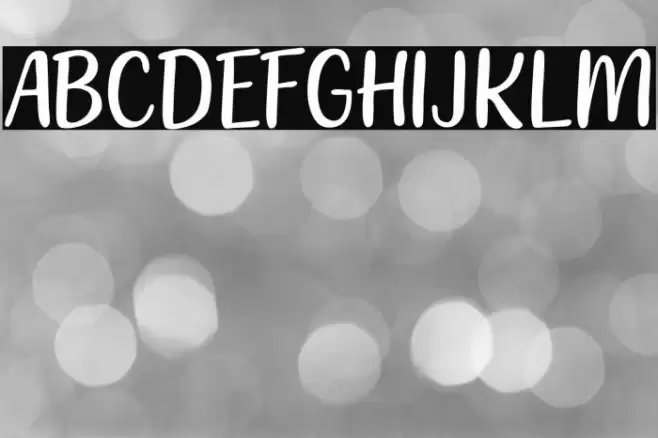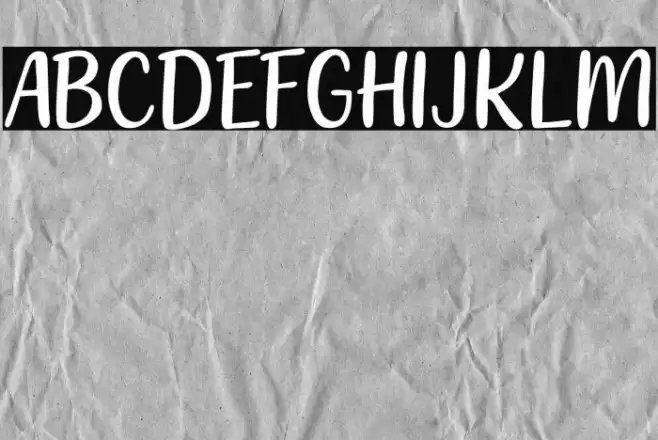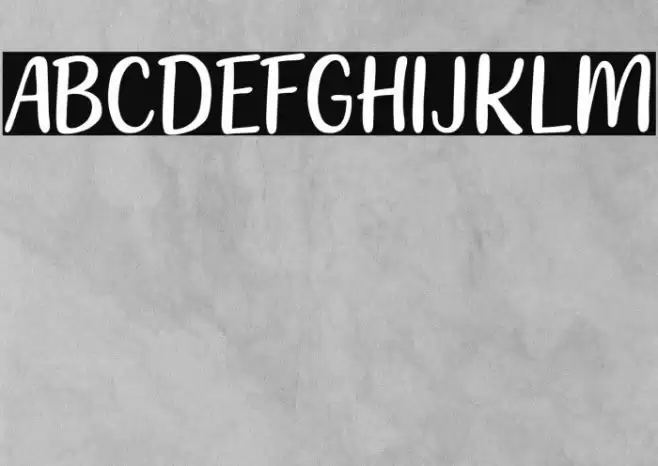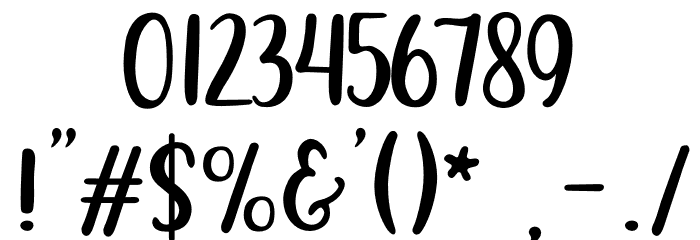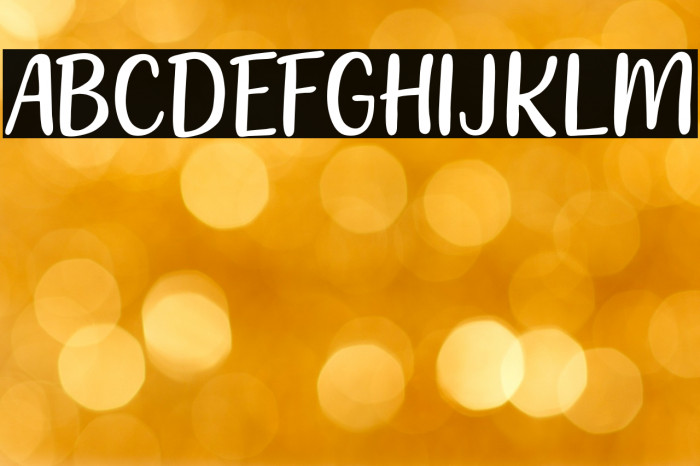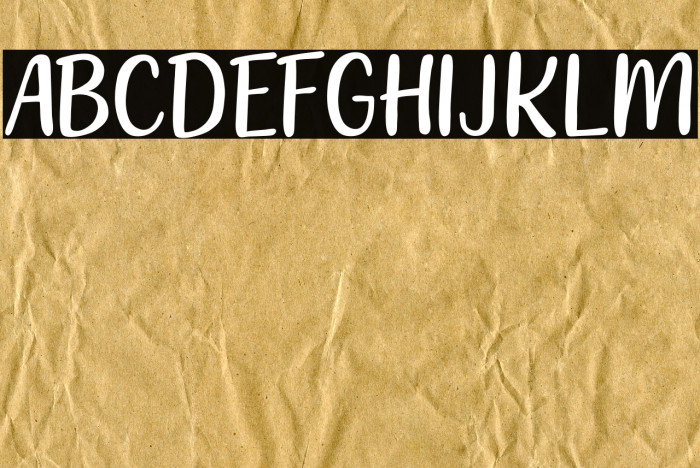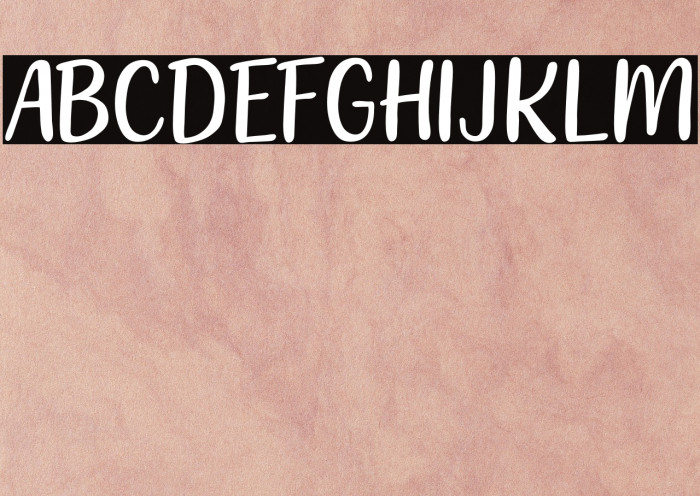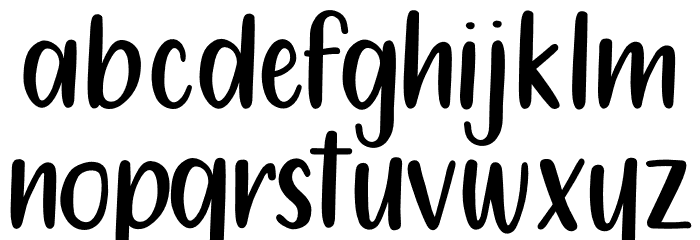
212 Moon Child Sans Font
212 Moon Child Sans Description
This playful and whimsical font features a handwritten style with smooth, flowing curves and a casual, friendly appearance. The uppercase letters are bold and slightly elongated, while the lowercase letters maintain a consistent height, adding to the font's approachable nature. The numbers are rounded and easy to read, complementing the overall design. Special characters are included, maintaining the same playful aesthetic. This font is perfect for projects that require a personal touch, such as invitations, greeting cards, or children's book covers.
A playful, handwritten font with smooth curves and a friendly appearance from Uncategorized fonts.
- Proposed Projects: Ideal for invitations, greeting cards, children's book covers, and playful branding.
- Overall Style: Playful
- Use Case: Headlines, Logos, Invitations